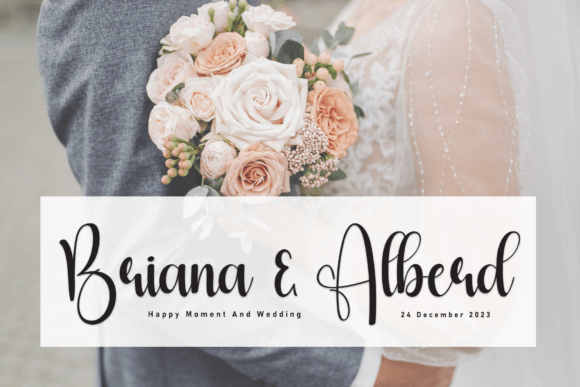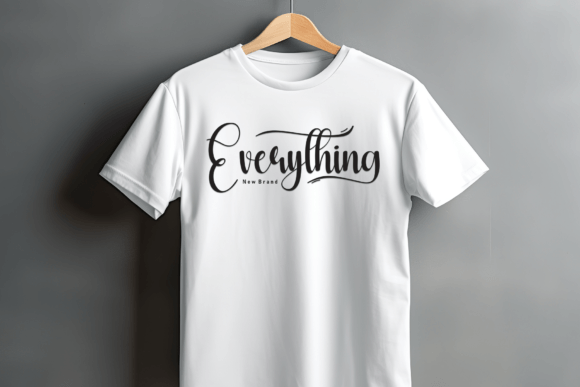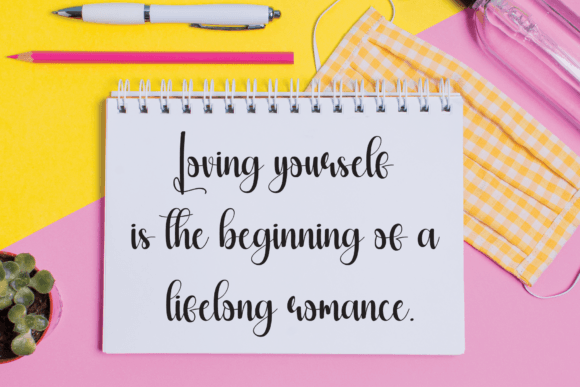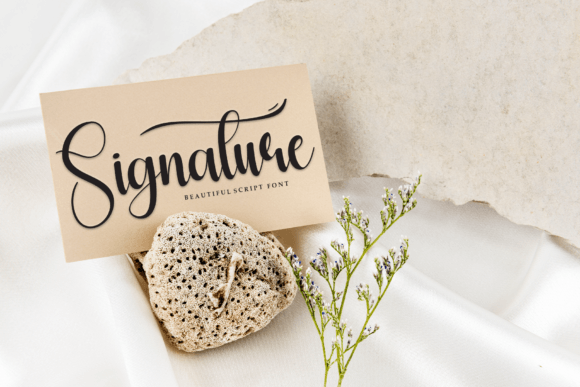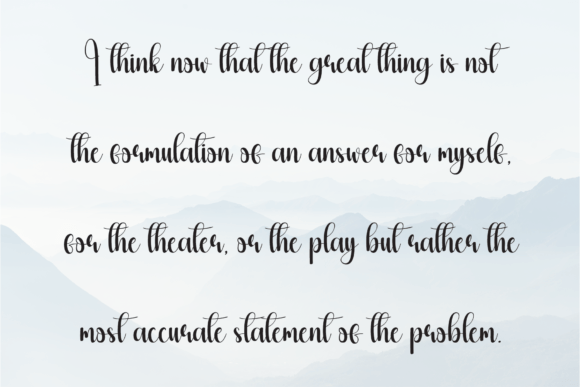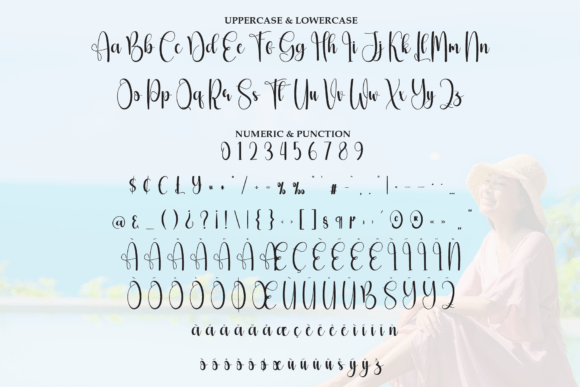
The Perfect Font for a Creative Getaway
You know that moment when you’re working on a design project, and everything just clicks? The colors, the layout, the typography – it all comes together in perfect harmony. That’s what I’m talking about. For me, it’s like taking a mini-vacation for my eyes and mind. And, let’s be honest, it’s even better when the right font makes it all possible.
That’s where the Beauty Vacation Font comes in – a modern and exquisite handwritten font that adds a touch of elegance and sophistication to any design. Its stylish, flowing lines make it perfect for creating beautiful, natural-looking designs that exude warmth and personality. Whether you’re a seasoned designer or just starting out, this font is a valuable addition to your toolkit – and, trust me, you’ll be taking a “beauty vacation” for your eyes every time you use it!
Beauty Vacation Font Key Features
- Unique Characteristics: This font features a unique, hand-drawn style with elegant and sophisticated lines, making it perfect for creating a luxurious and high-end aesthetic in design projects.
- Font Styles: The font family includes various font styles, including Regular, Italic, Bold, and Bold Italic, providing designers with a range of options to create visually appealing and effective typography.
Beauty Vacation Font Review
Overall, I’d say the Beauty Vacation Font is a visually appealing and elegant choice for any design project. ✨ Its unique blend of modern and vintage elements makes it perfect for luxury brands, spas, or any business looking to add a touch of sophistication to their branding.
The font’s best features include:
- ✨ Elegant and refined lines, perfect for creating a sense of luxury and high-end quality.
- ✨ Beautifully crafted uppercase and lowercase letters that add to the font’s unique charm.
- ✨ Highly legible, making it perfect for body text or headlines.
- ⚠️ Limited character set, which may not be ideal for projects that require a wide range of special characters.
- ⚠️ May not be the best choice for projects that require a lot of bold or italic text, as the font’s design may not translate well to these styles.
Overall, I’d give the Beauty Vacation Font 4 out of 5 stars. While it has some limitations, its unique design and elegance make it a great choice for the right project.
Beauty Vacation Font: A Practical Application Guide
Beauty Vacation Font is ideal for creating eye-catching and luxurious designs, making it perfect for:
- Travel and hospitality branding
- Beauty and wellness marketing materials
- High-end fashion and lifestyle graphics
Remember to use the font in moderation and balance it with other design elements to avoid overwhelming your audience.
Alternatives to Beauty Vacation Font
Great Vibes Font is a modern script font that is perfect for creating a fun and carefree atmosphere. It is ideal for use in travel and tourism-related projects, as well as any design that requires a playful and energetic feel. Compared to Beauty Vacation Font, Great Vibes Font has a more relaxed and casual tone, making it suitable for a wider range of designs.